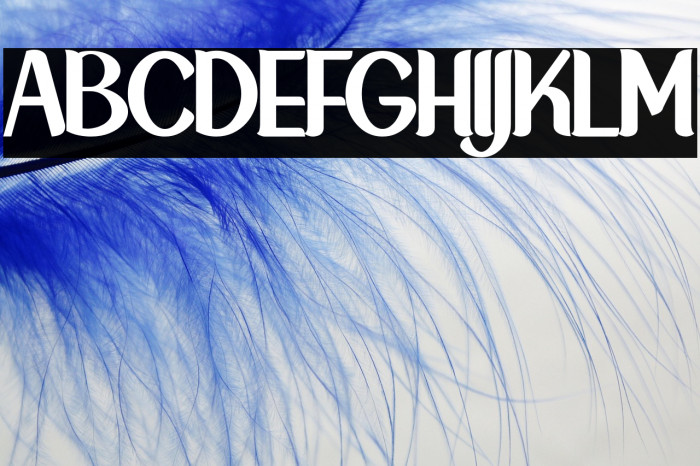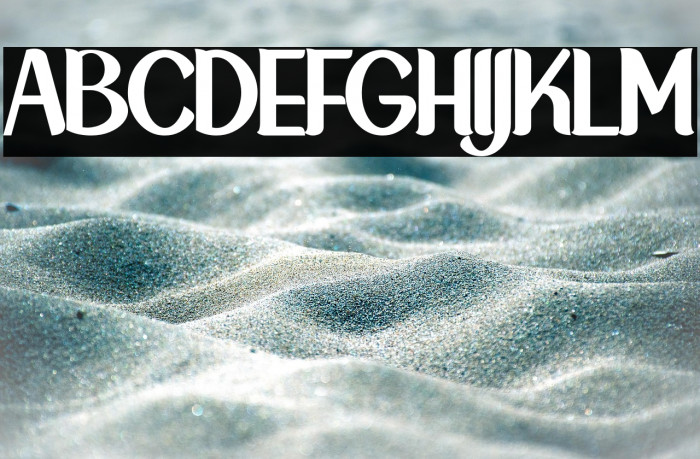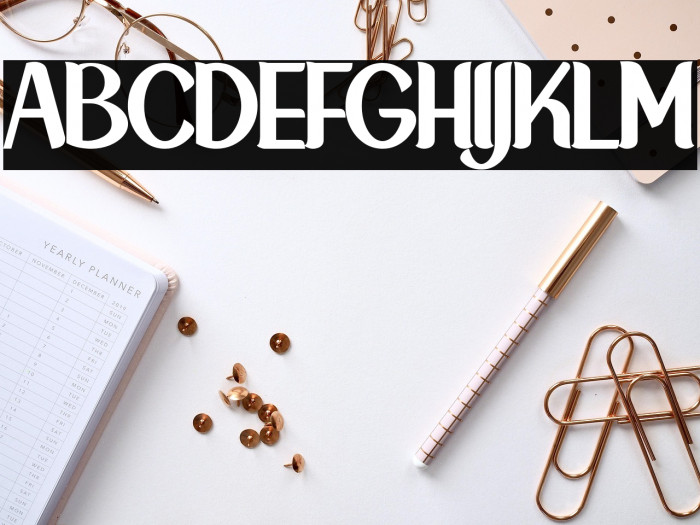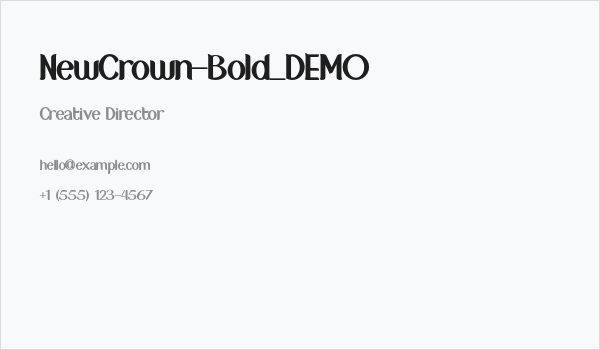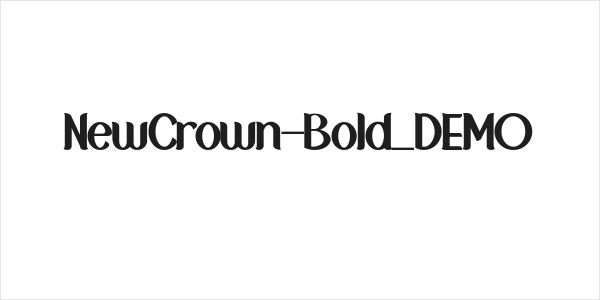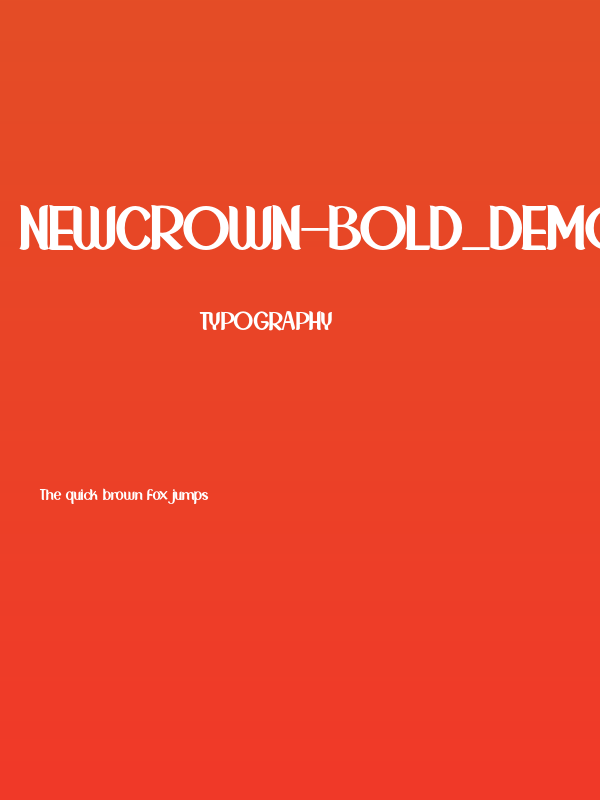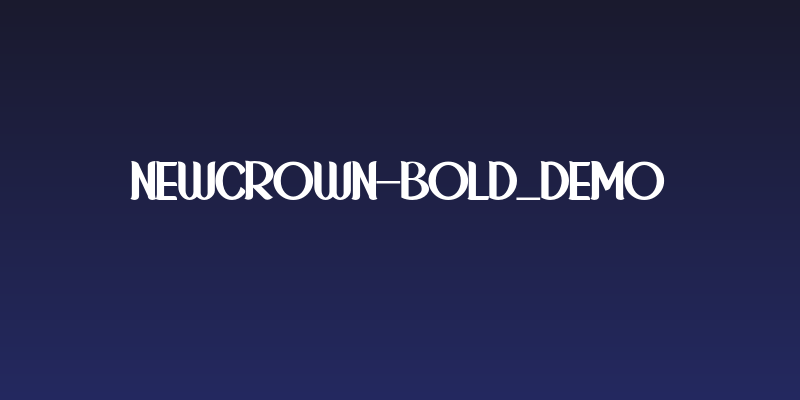
NewCrown-Bold_DEMO Font
NewCrown-Bold_DEMO Description
This font features a bold and dynamic style with a strong presence. The characters are crafted with a unique flair, incorporating both rounded and angular elements that create a sense of movement and energy. The uppercase letters are particularly striking, with a boldness that commands attention, while the lowercase letters maintain a consistent flow. The numerals are distinct and easily readable, making them suitable for various applications. Special characters are designed with the same bold aesthetic, ensuring consistency across all text elements. This font is ideal for projects that require a strong visual impact.
| Proposed Projects | Ideal for branding, advertising, poster design, and any project requiring a bold statement. |